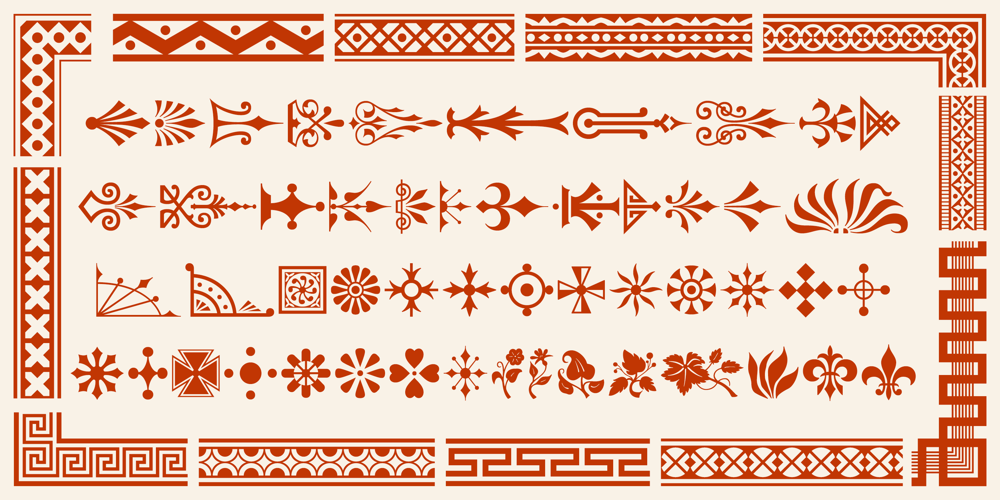
Gothic Extras Font Family was designed by Ryoichi Tsunekawa and published by Dharma Type. Gothic Extras contains 5 styles and family package options. Gothic Extras are frames, borders and ornaments for -Dharma Gothic -Dharma Gothic Rounded -Dharma Slab -Rama Gothic -Rama Slab and -Bebas Neue Pro This family includes borders, ornaments and frames designed using vintage catalog of Hamilton in 1800s as a model.